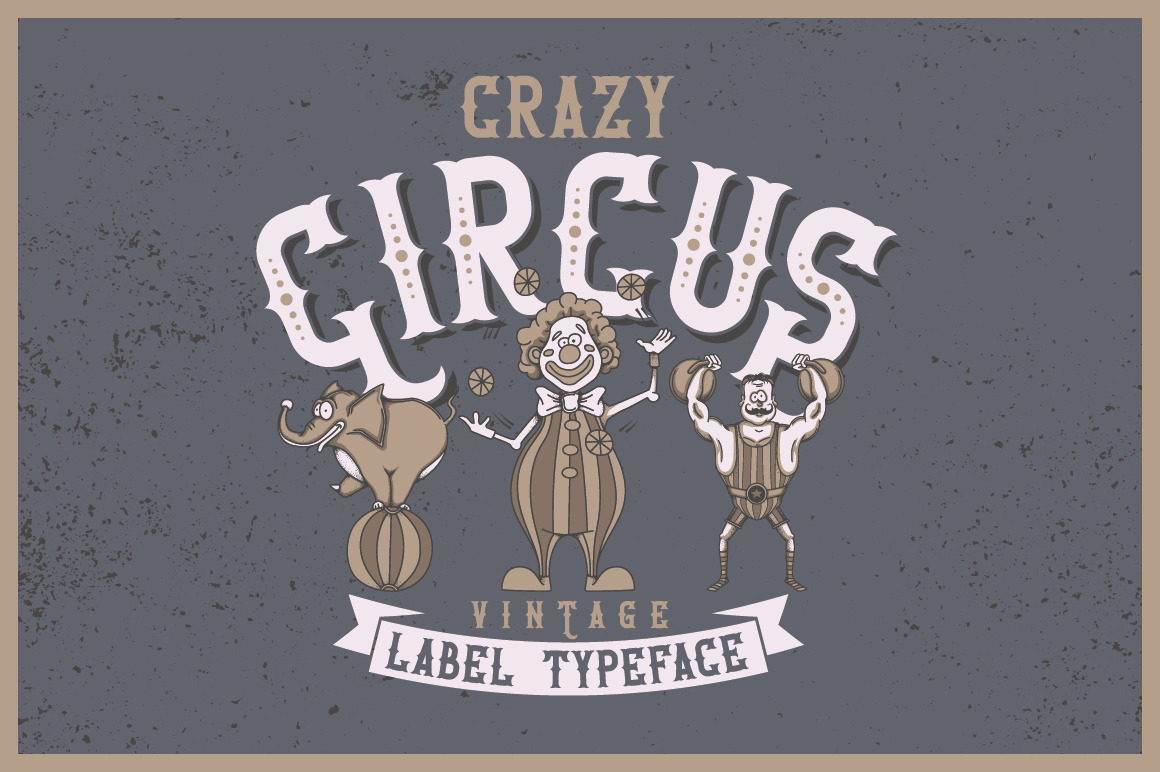
Crazy Circus typeface
Introducing a vintage look label typeface named "Crazy Circus". It's made in strong and vintage label style. Typeface is good viewed on any labels design.
- 5 fonts in complect with special effects, plus aged version
- You can mix texture and shadow effects (look at 4-th screenshot)